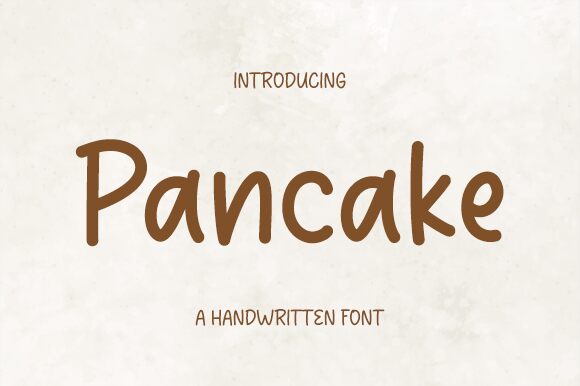
Pancake
Pancake, a creation by Graphix Line Studio, brings a playful yet refined touch to the realm of handwritten fonts. With its semi-light weight, this font exudes a delicate charm that captures the essence of personal touch and authenticity. The fluidity of Pancake's characters suggests a seamless blend of casual elegance, making it an excellent choice for designs seeking to convey warmth and approachability.
Its aesthetic appeal lies in its ability to mimic the quirks of actual handwriting while maintaining legibility and grace. This makes Pancake not only visually pleasing but also versatile in application—from personalized branding materials to engaging social media graphics. Whether you're creating invitations, logos, or heartfelt messages, Pancake's distinctive style will add a dash of individuality to your creative projects.